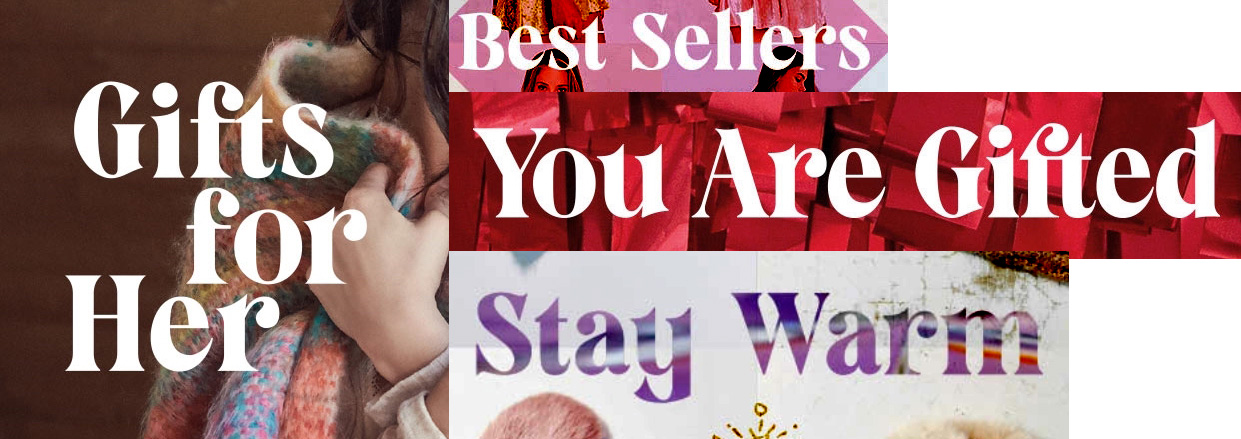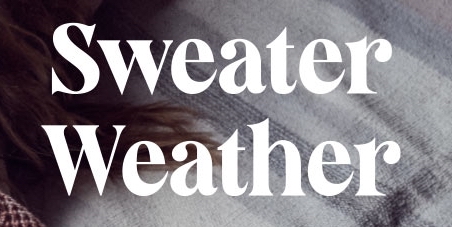
Urban Outfitters is using this 1970s/Romana/De Vinne-style type for their 2016 holiday logotype, website, and advertising. My assumption is that it’s custom, and some of the corners cut in what appears to be a rush job or purposefully wonky (see ‘s’, ‘y’) indicate that it’s not meant for the retail font market, but I want to be sure I didn't miss any existing fonts.
Similar, but not matches:
Denver
Hawthorn
Superior Title
ITC Bernase Roman
Urban Outfitters designer David Wise confirms that it’s custom.